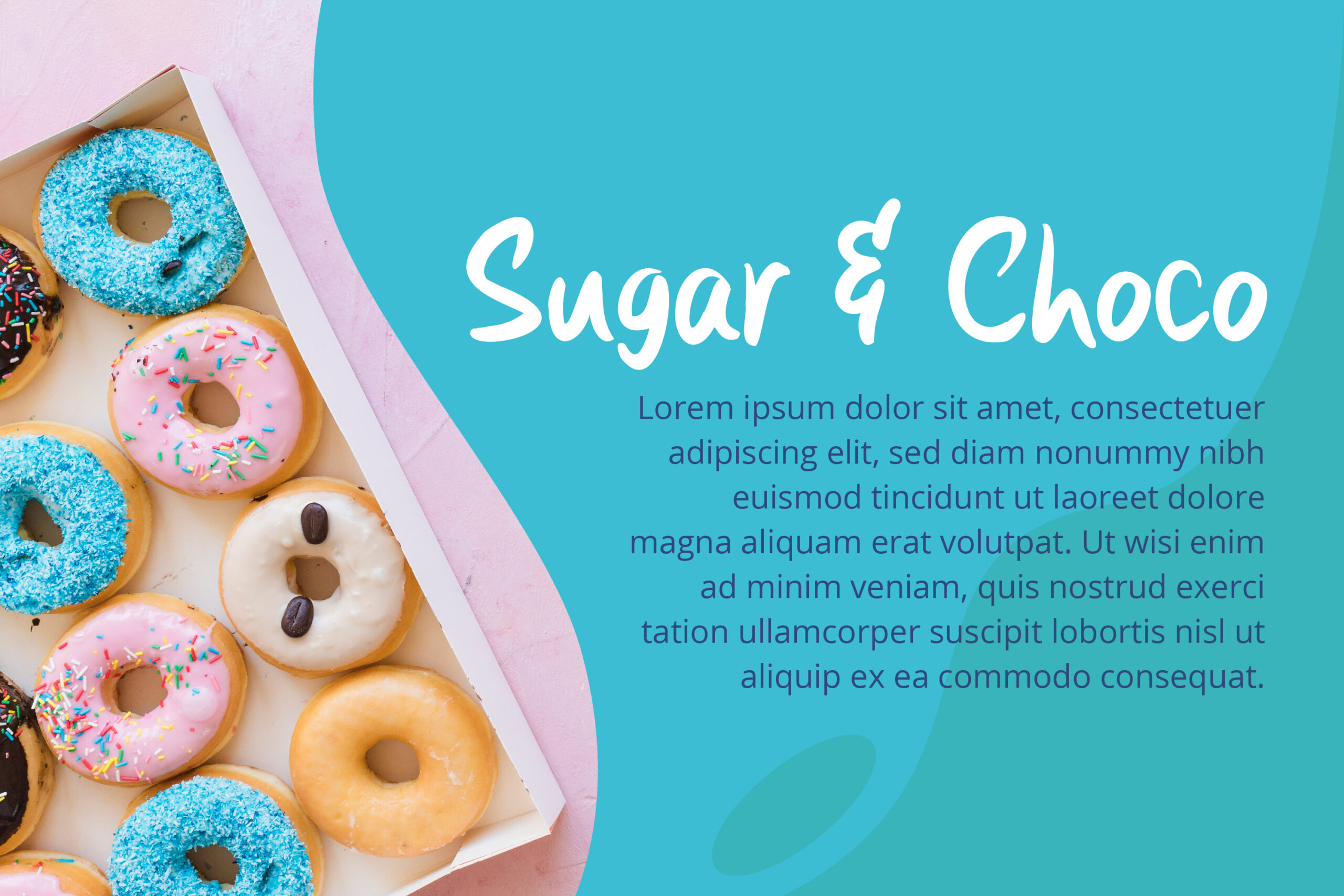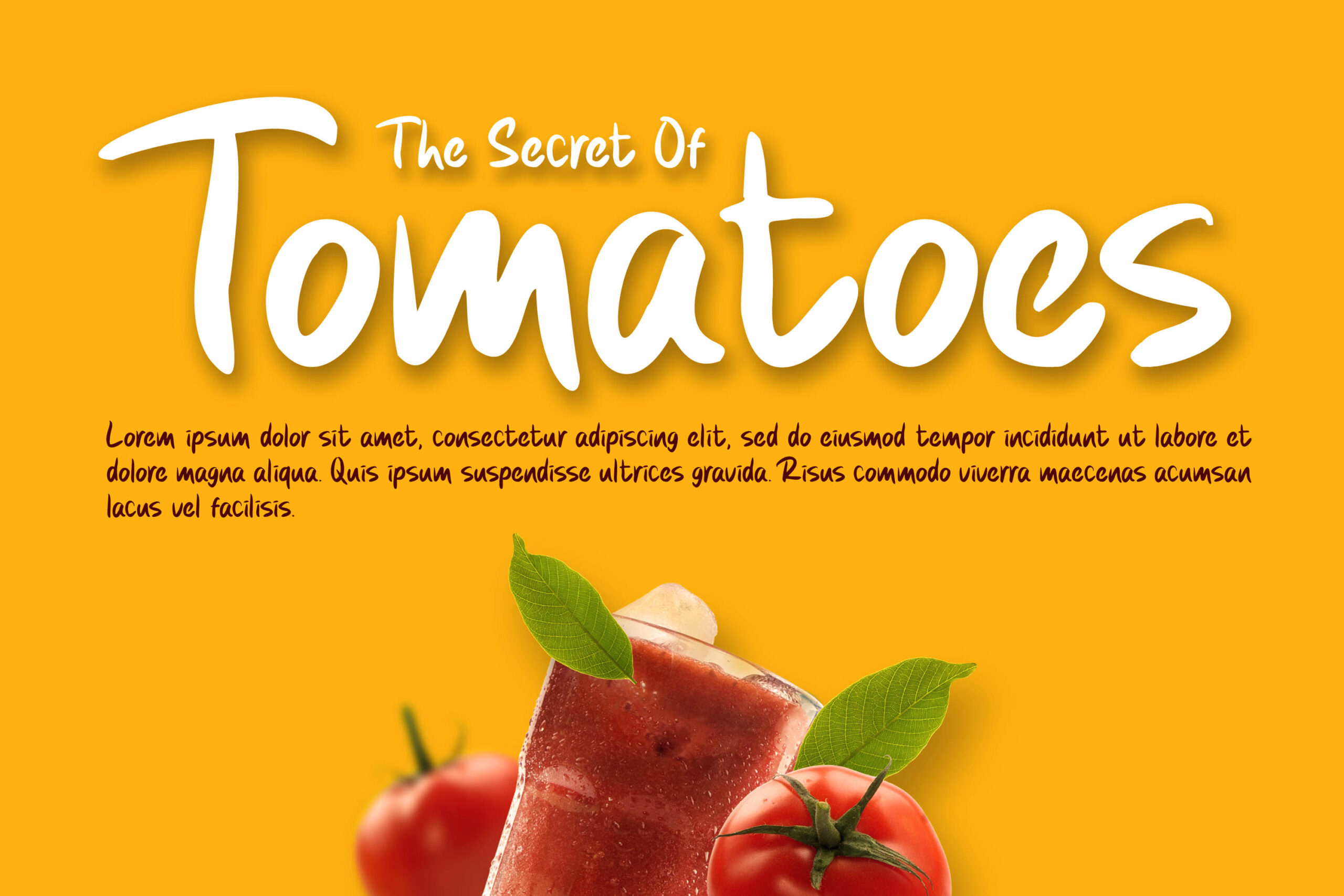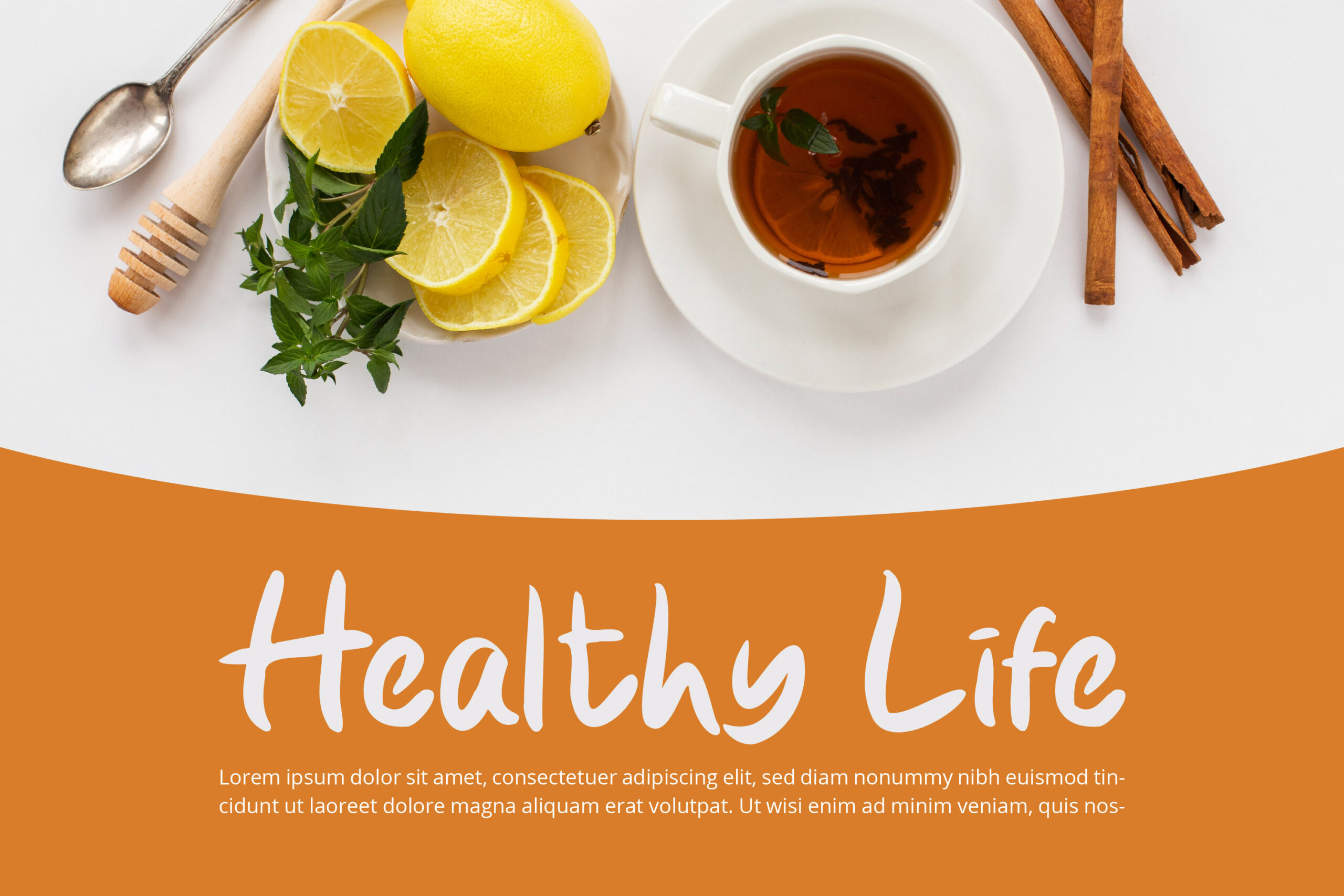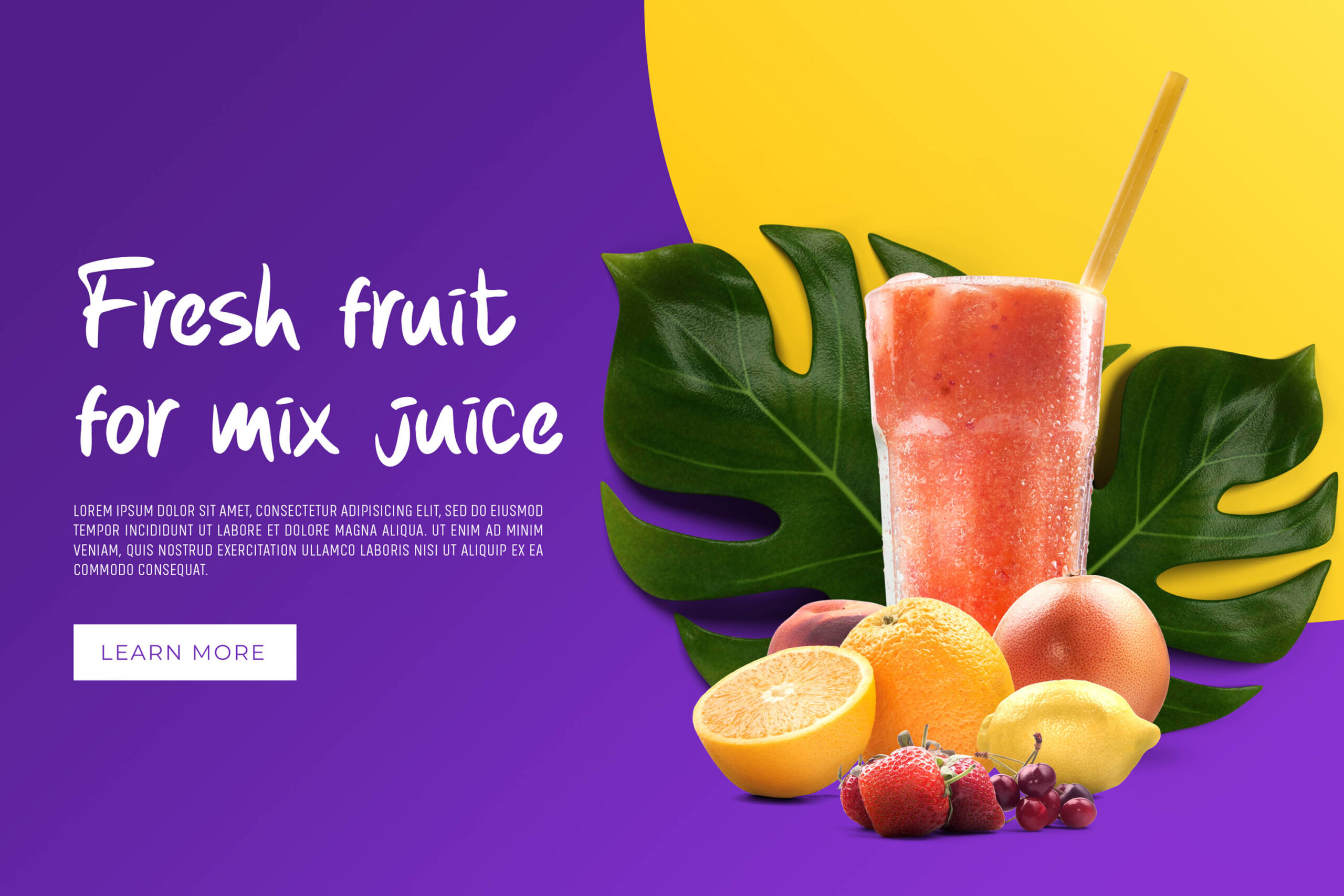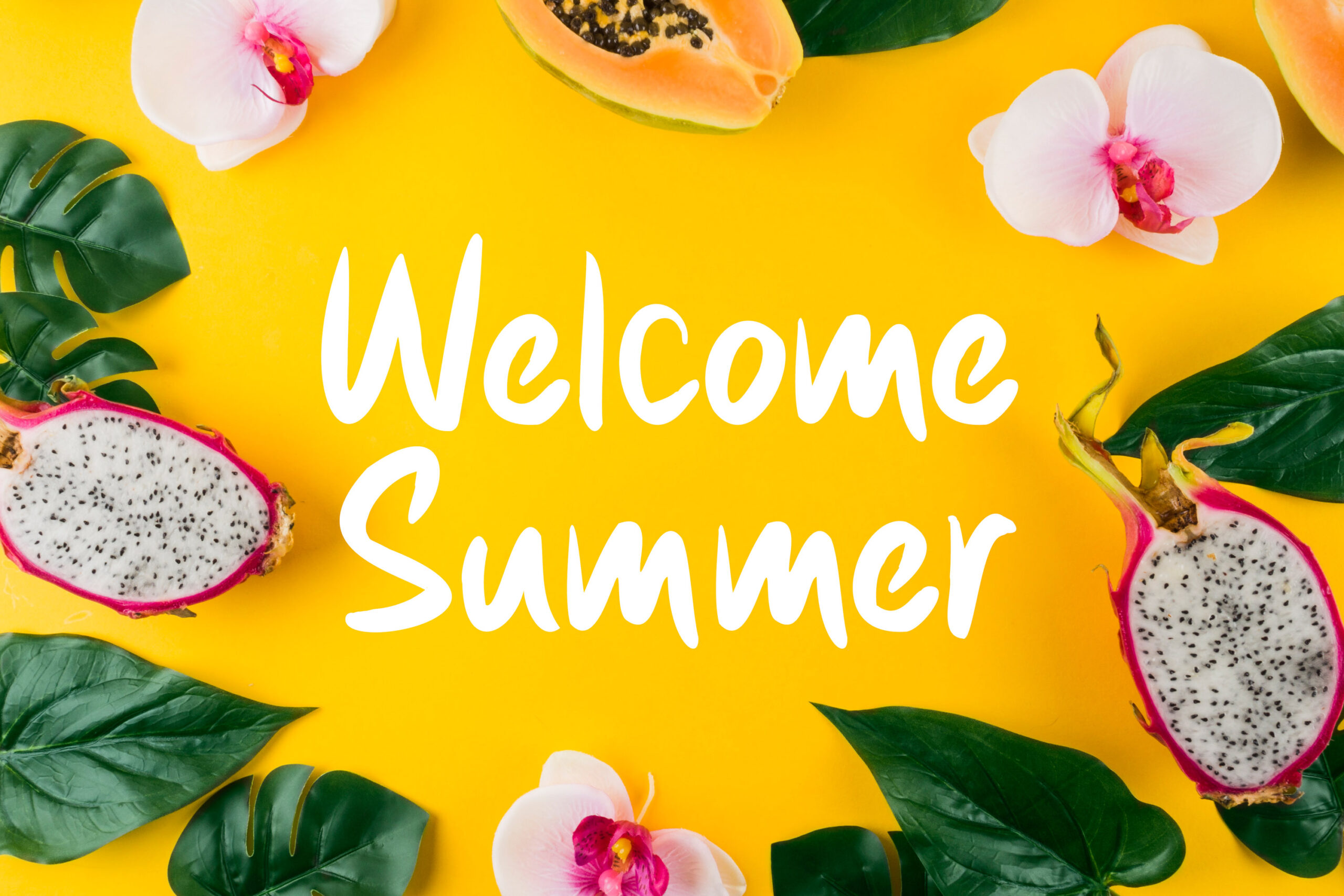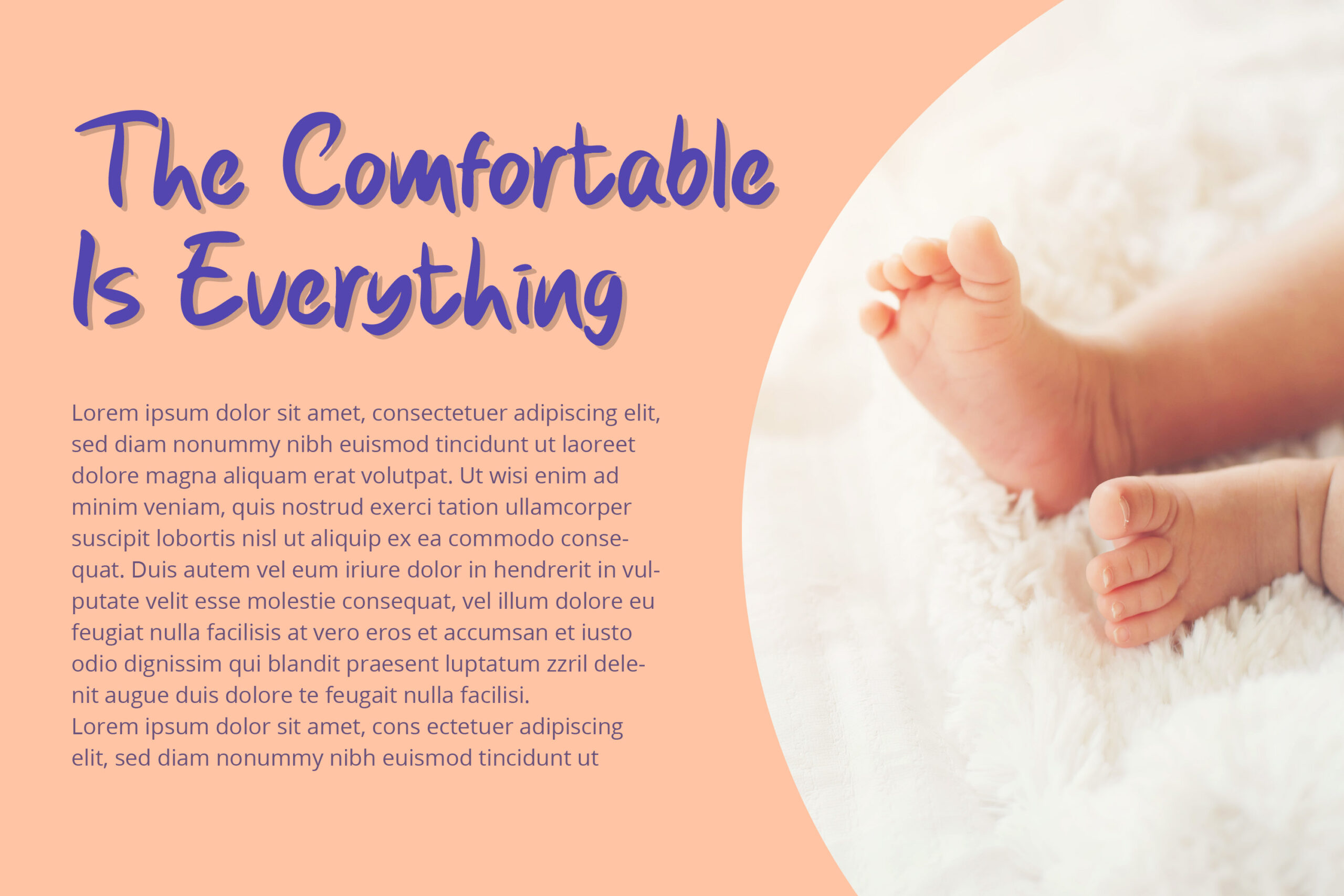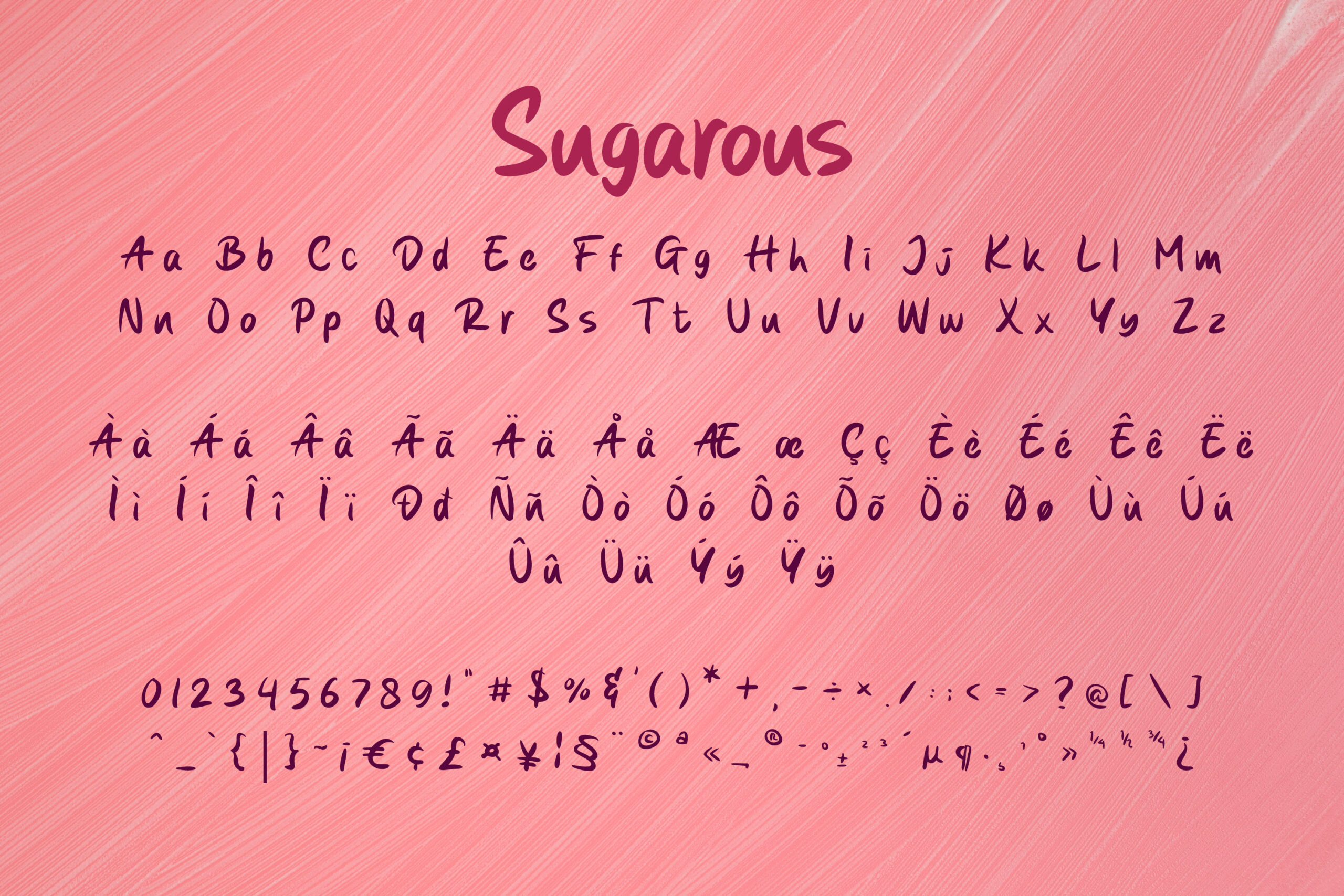
- Sugarous – The Sweet Font
DESCRIPTION
Sugarous is a natural and iconic handwritten brush font. It allows you to bring a playful vibe with its natural handwriting touch and authentic style. This font is the perfect match for design projects such as poster design, print ads, digital ads, headlines, t-shirts, crafts, and so on.